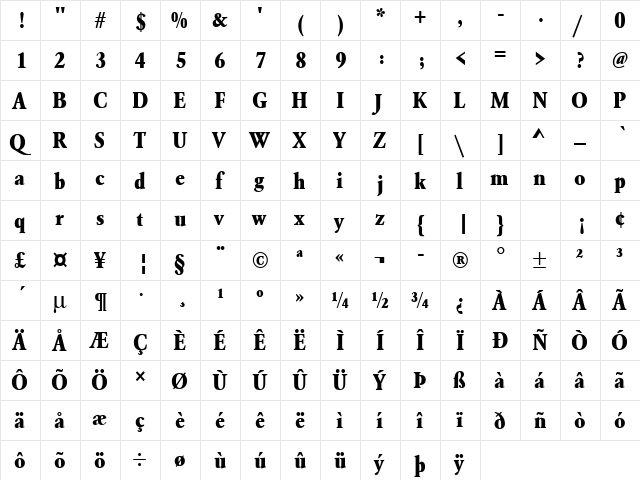
URWGaramondTExtBolExtNar Regular
Design Context for URWGaramondTExtBolExtNar Typeface
URWGaramondTExtBolExtNar offers clean, dependable letterforms without strong stylistic allegiance, making it a practical choice for designers who need flexibility.
Pro Tip: Use URWGaramondTExtBolExtNar in both headline and body roles to test its range before committing to a single application.